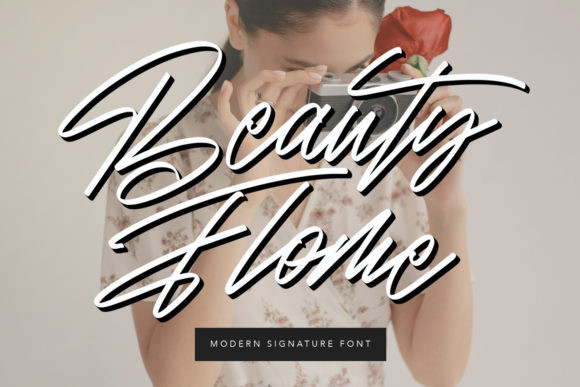
Beauty Flome Font
Beauty Flome is an elegant, distinct handwritten font. Get inspired by its versatile and timeless style and use it to create gorgeous wedding invitations, beautiful stationary art, eye-catching social media posts, and much more!